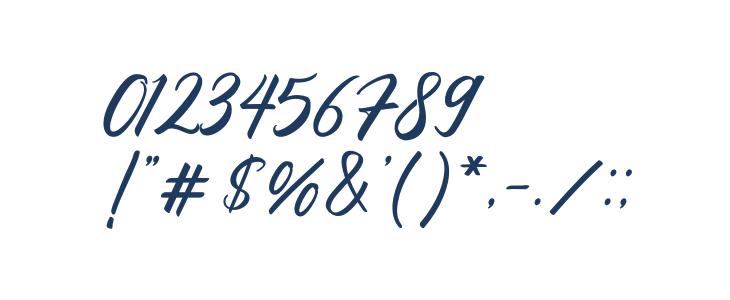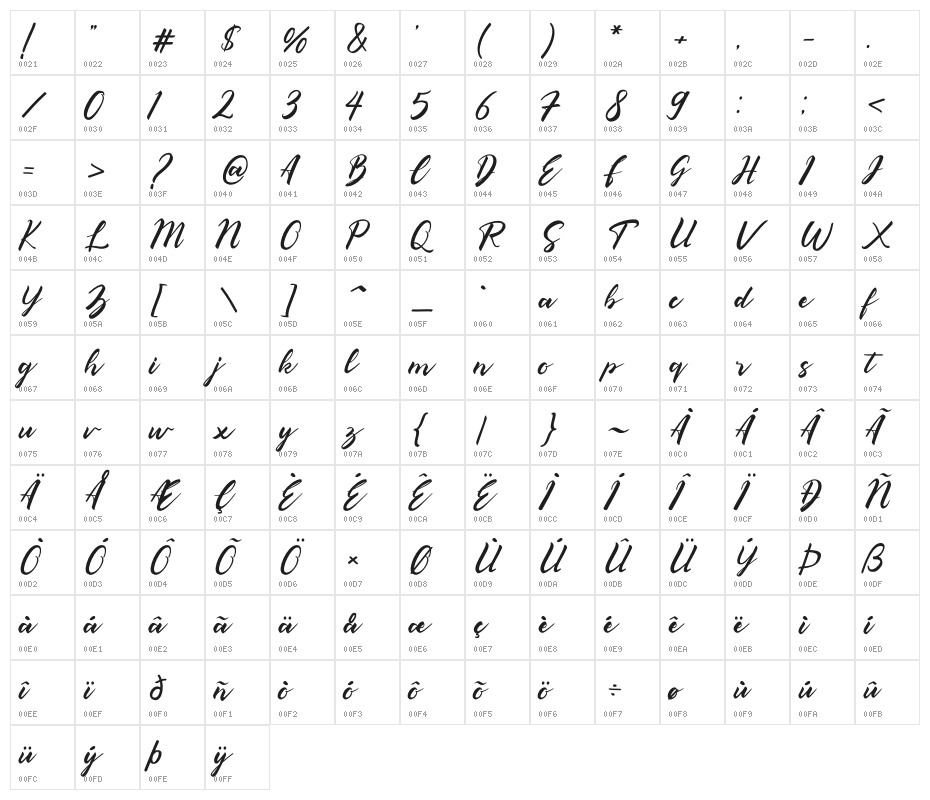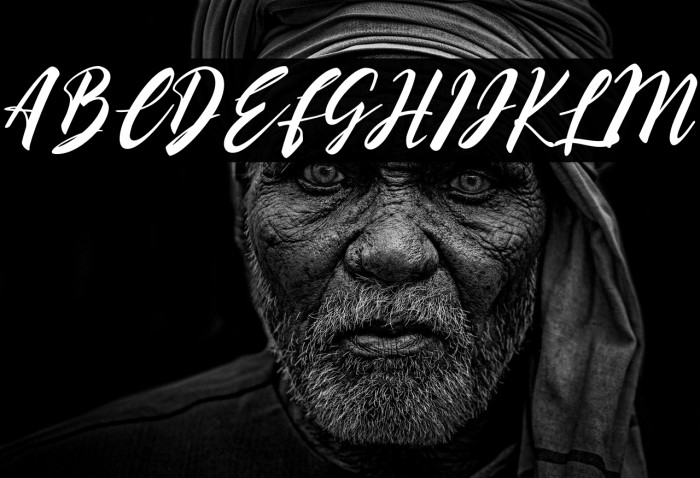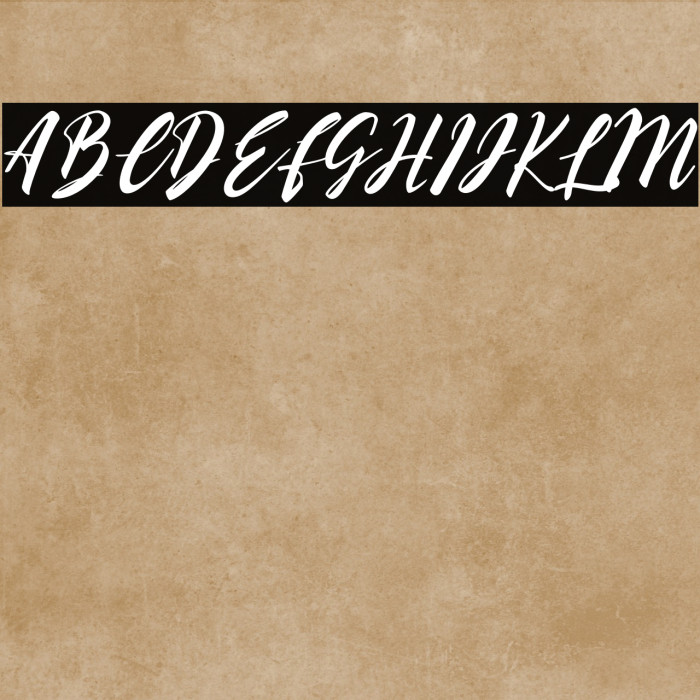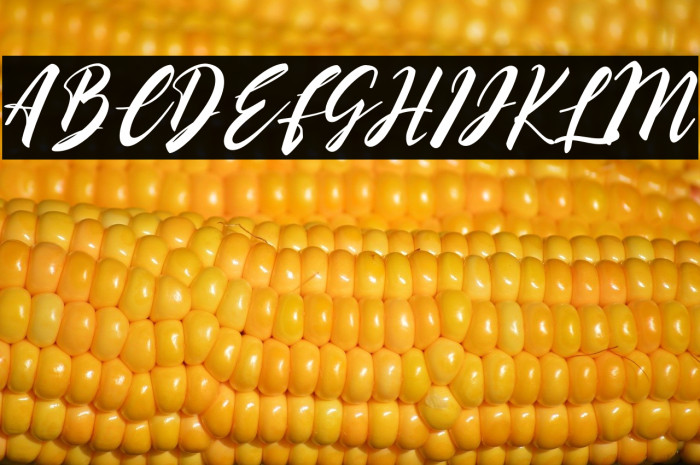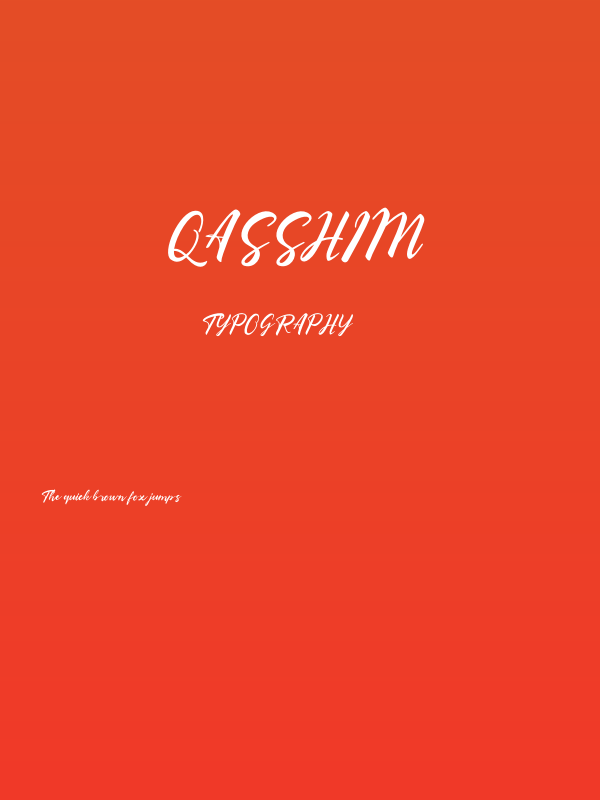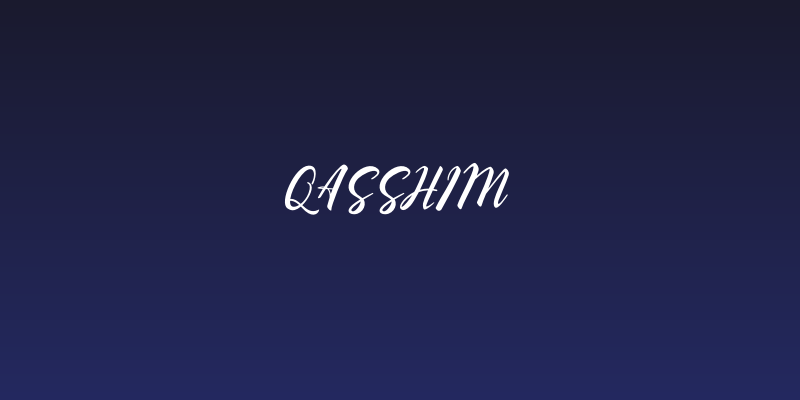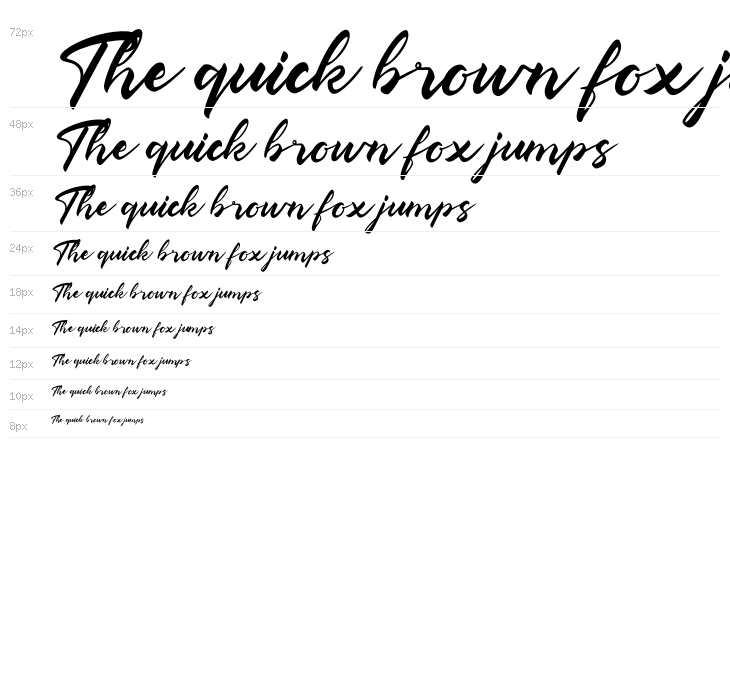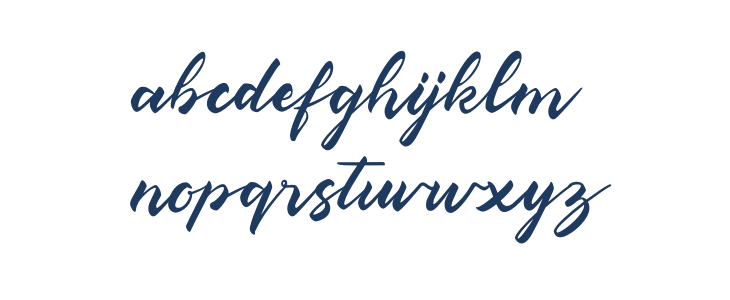
Qasshim Font
Qasshim Description
This font exhibits a flowing, cursive style with a modern flair. The characters are elegantly connected, creating a sense of fluidity and movement. The strokes are bold and confident, with a slight slant that enhances the dynamic appearance. The uppercase letters are distinct and prominent, while the lowercase letters maintain a consistent rhythm. The numerals are clear and well-defined, complementing the overall aesthetic. Special characters are seamlessly integrated, adding versatility to the font's usage. This script style is both sophisticated and approachable, making it suitable for a variety of design applications.
Use CaseLogos, Headlines, Invitations
Proposed ProjectsIdeal for wedding invitations, branding, greeting cards, and elegant packaging designs.